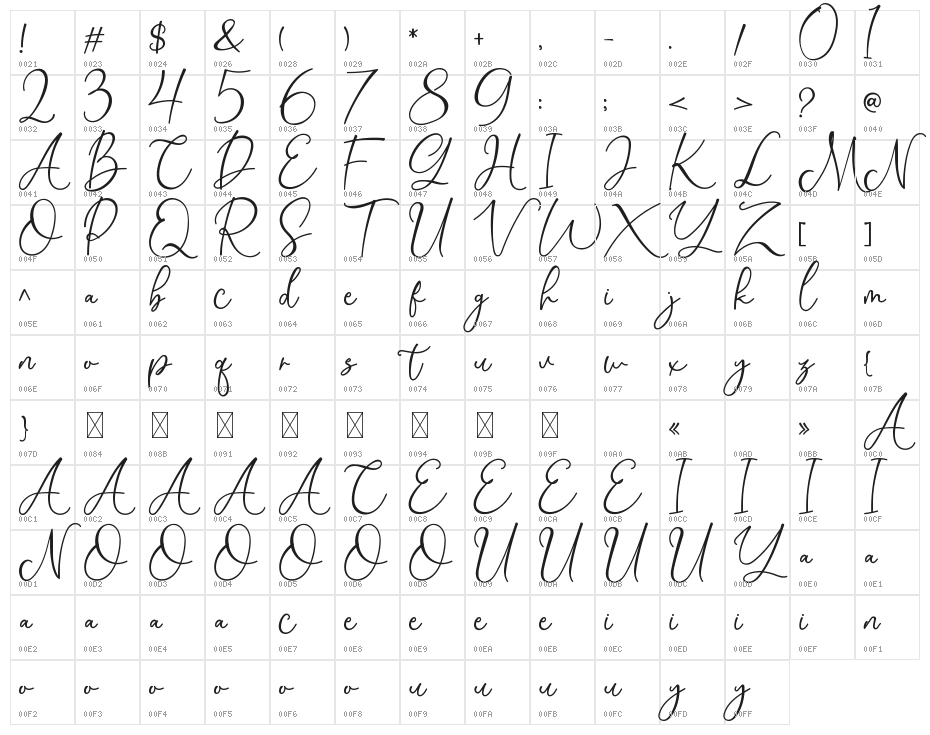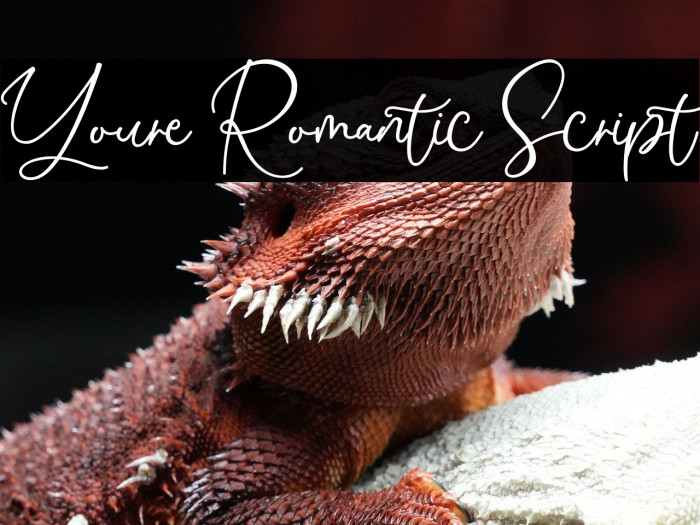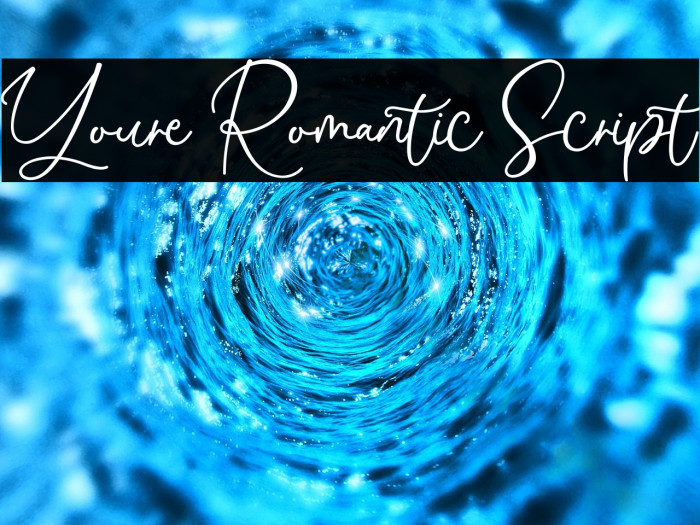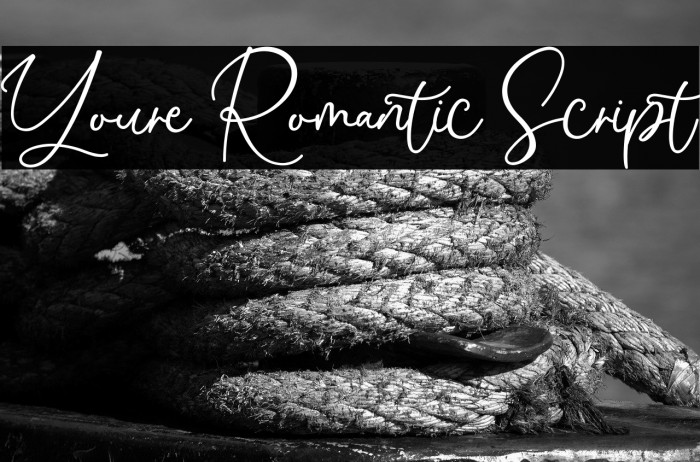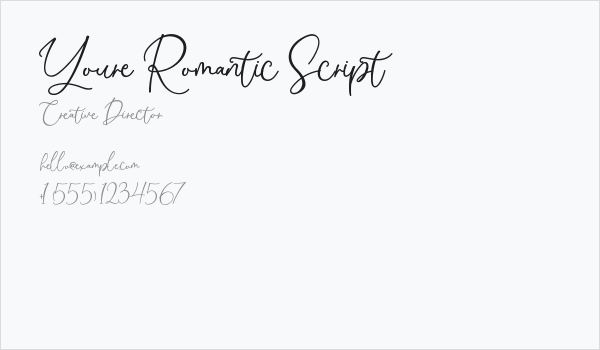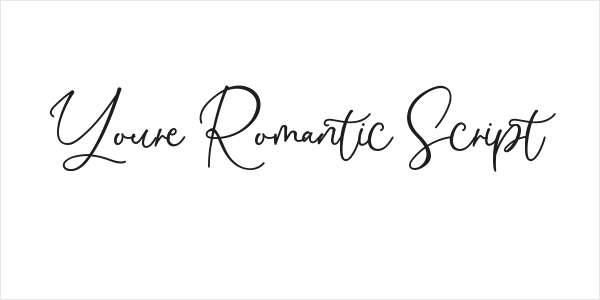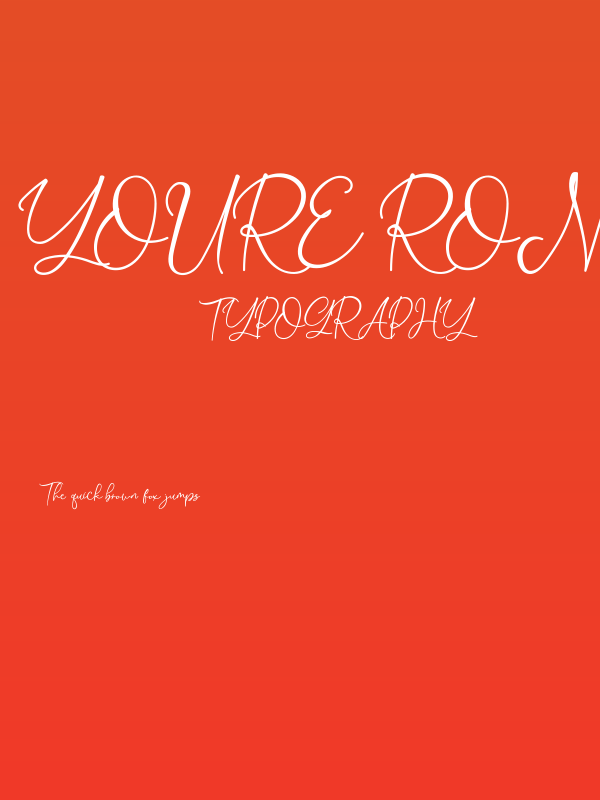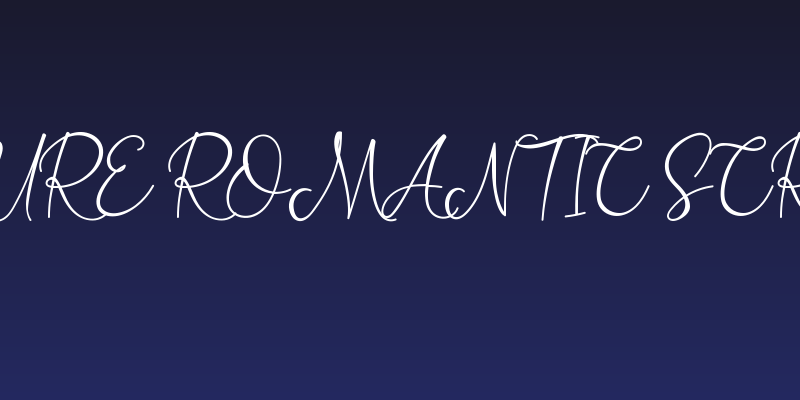
Youre Romantic Script Font
Youre Romantic Script Description
This elegant script font features a flowing, cursive style with graceful loops and swashes, capturing a romantic and sophisticated essence. The uppercase letters are tall and slender, while the lowercase letters exhibit a more playful and connected form, enhancing the fluidity of the text. The numerals maintain the script's elegance, with a consistent stroke that complements the letters. Special characters are thoughtfully designed, adding a touch of flair to the overall aesthetic. The font's delicate strokes and artistic curves make it ideal for creating a sense of elegance and charm in any design.
| Overall Style | Romantic, Elegant |
| Use Case | Headlines, Invitations, Branding |
| Proposed Projects | Wedding invitations, greeting cards, branding for luxury products, elegant logos, and decorative quotes. |